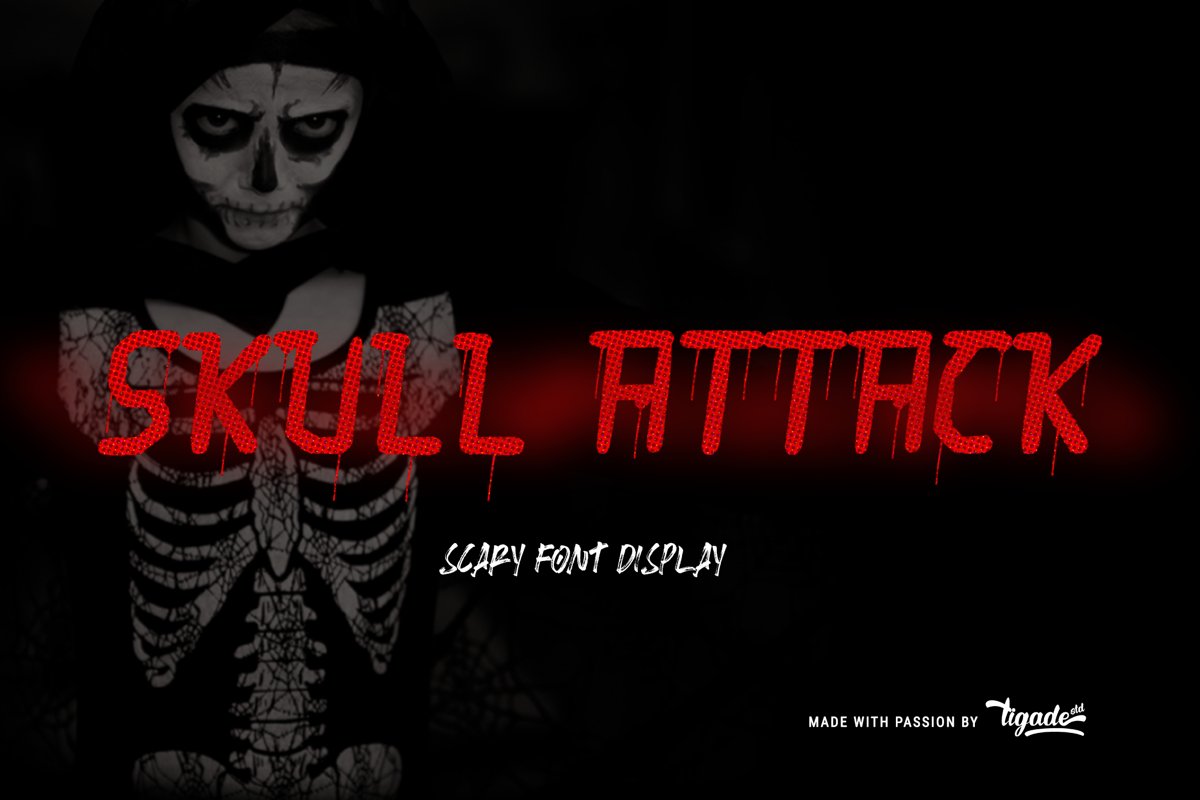
Skull Attack - Horror Brush Font with Bleeding Effect
Skull Attack is a Display Font which comes with Only Uppercase and few punctuation. It is suitable to be used for caption or headline of a cover magazine, or event poster and invitation. It can look scary but in the same time look cute and happy. Which also make this font can be used for happy horror events.